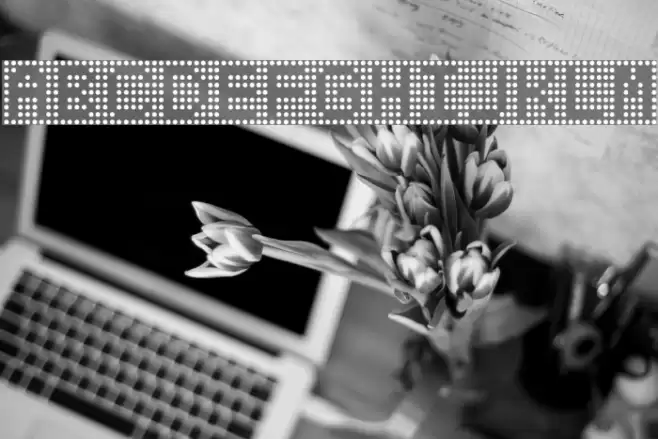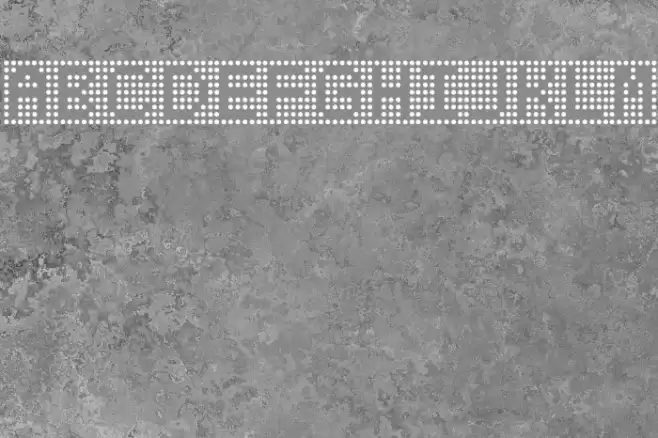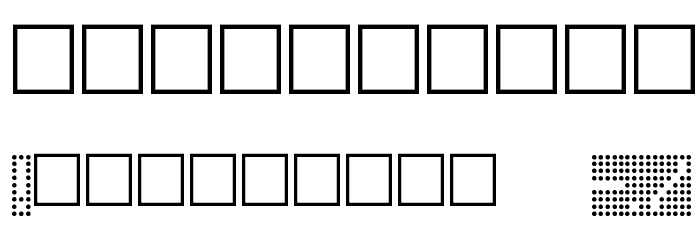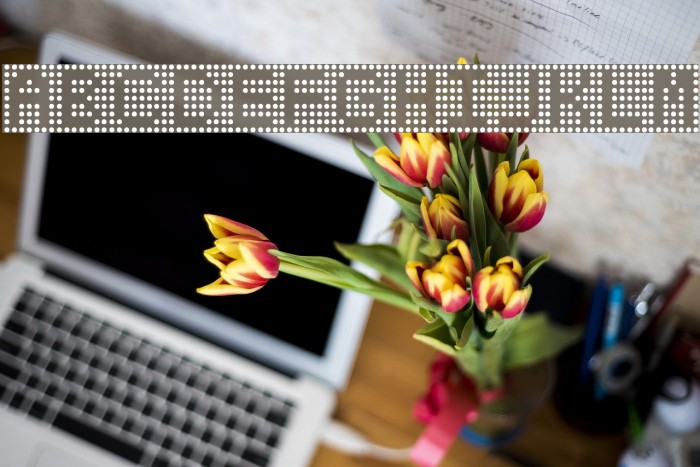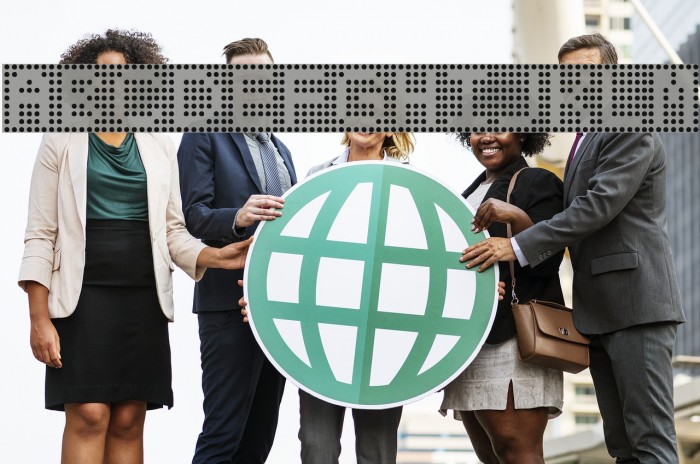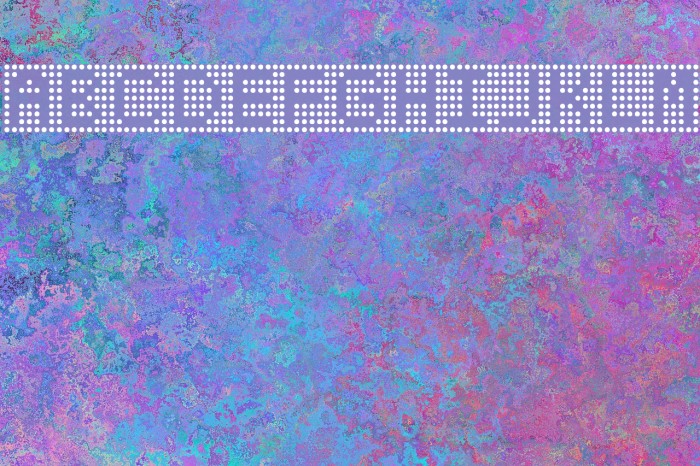
Toteboard Font
Toteboard Description
This font features a unique dot matrix design, reminiscent of digital displays and retro technology. Each character is constructed from a grid of dots, creating a pixelated effect that is both modern and nostalgic. The uppercase letters are clearly defined, with each dot contributing to the overall shape, making it highly legible from a distance. The font's geometric precision and uniformity give it a structured appearance, ideal for conveying information in a straightforward manner. Its distinct style is perfect for projects that require a digital or tech-inspired aesthetic, such as electronic displays, digital art, or themed events. The font's simplicity and clarity make it versatile for various applications, while its unique design ensures it stands out in any context.
A dot matrix font with a digital, retro aesthetic from Uncategorized fonts.
- Proposed Projects: Ideal for digital displays, tech-themed designs, retro-inspired art, and electronic signage.
- Use Case: Headlines, Logos, Digital displays